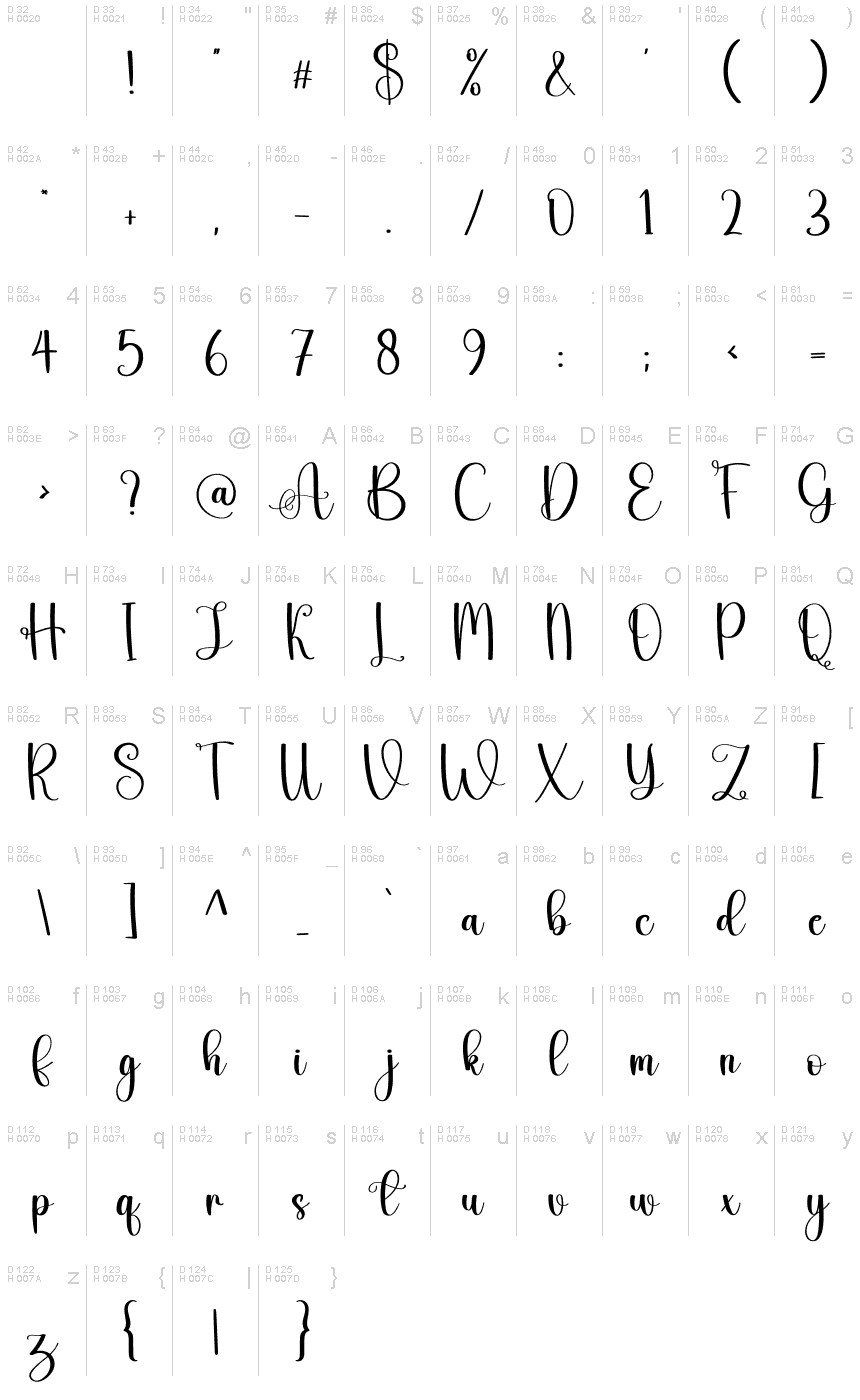
Capture
Capture, designed by Harlek Studio, is a captivating calligraphy font with a semi-light weight.
Its fluid strokes and graceful curves make it perfect for elegant wedding invitations, sophisticated branding projects, or luxurious fashion magazines. Embrace the romance of handwritten letters with this enchanting typeface that effortlessly adds a touch of class to any design. Whether you're designing for a high-end event or looking to elevate your brand's visual identity, Capture will infuse your project with timeless charm and refined beauty.